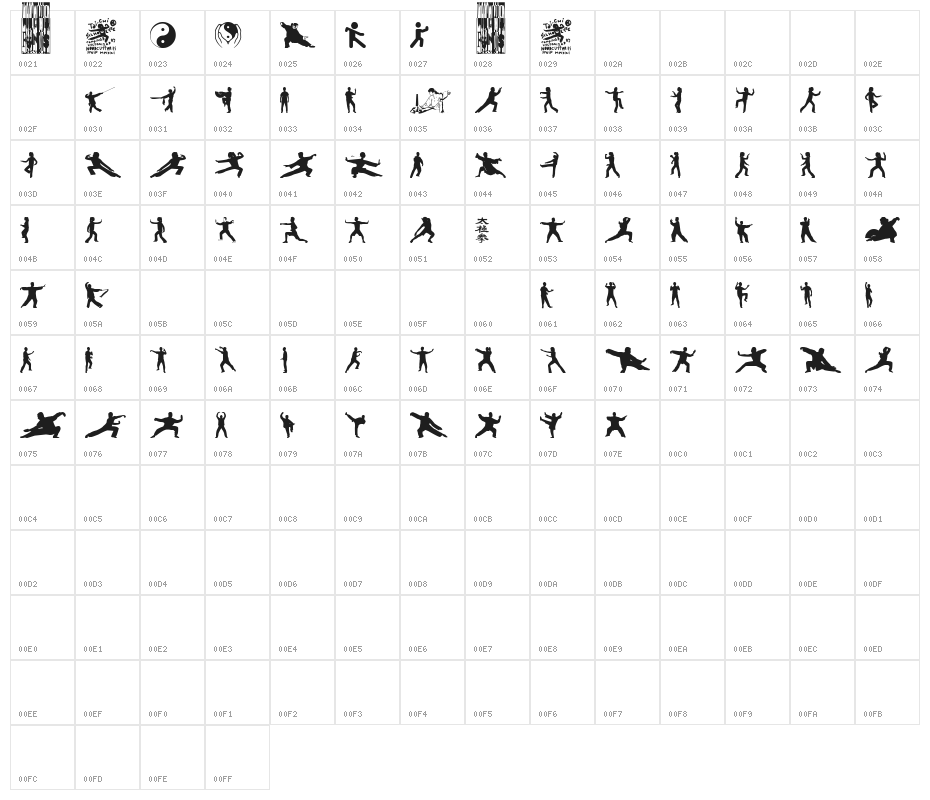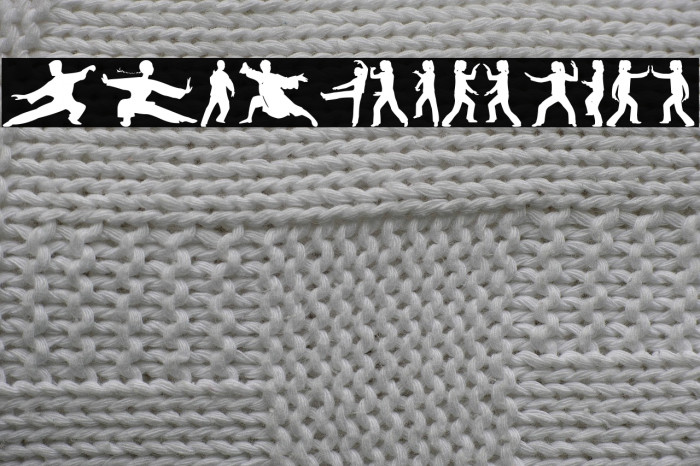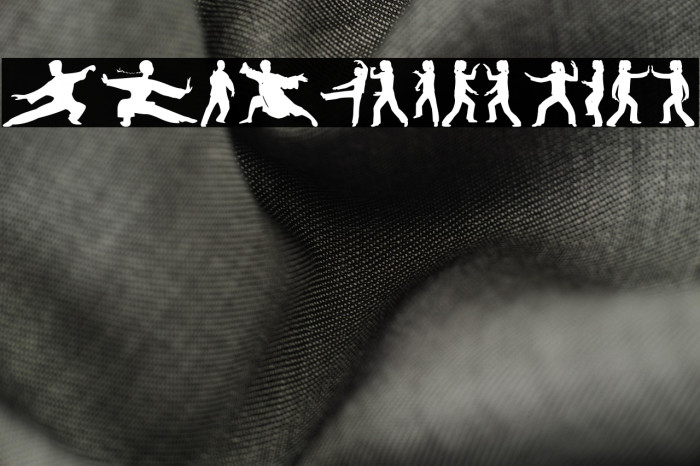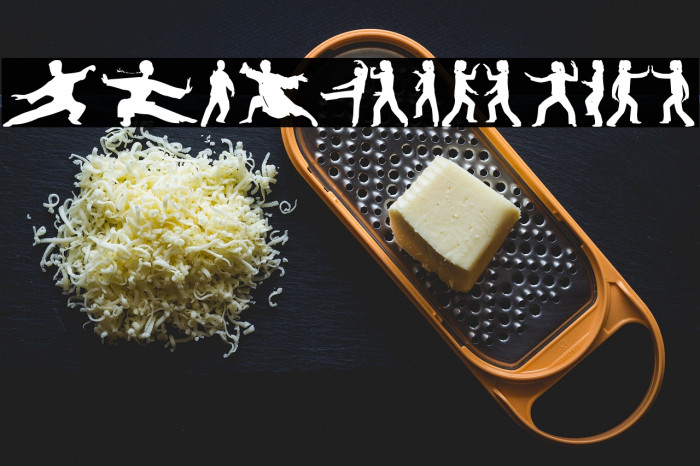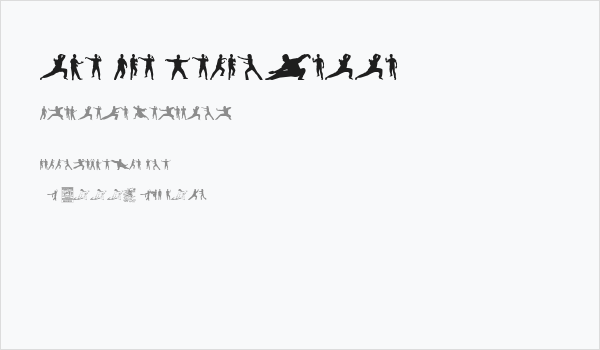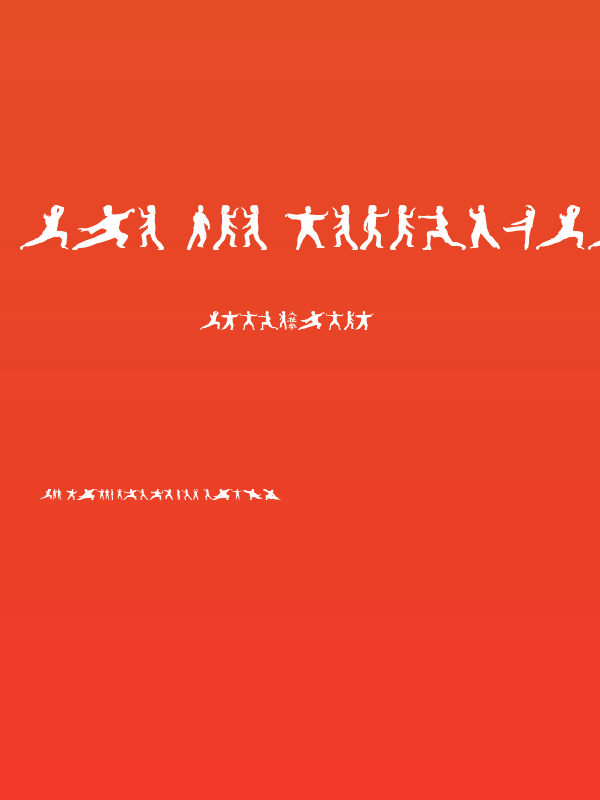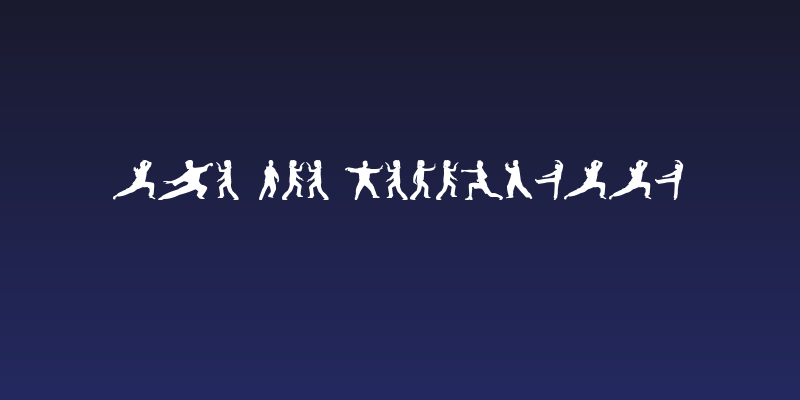
Tai-Chi Silhouette Font
Tai-Chi Silhouette Description
A decorative display font composed of solid black silhouettes depicting various Tai Chi poses and martial arts stances, with some additional symbols and logotypes. The characters are highly pictorial, lacking traditional letterforms, and instead use human figures in dynamic motion to represent each glyph.
Overall StyleDecorative, Pictorial, Thematic
Use CaseHeadlines, Logos, Posters, Themed graphics
Proposed ProjectsMartial arts event posters, themed invitations, fitness studio branding, decorative headings, educational materials about Tai Chi.